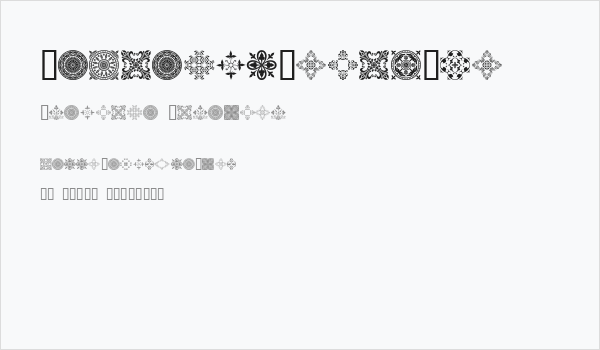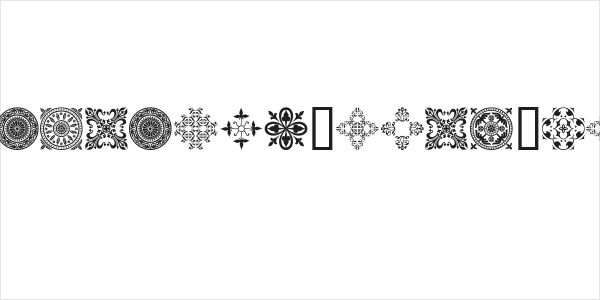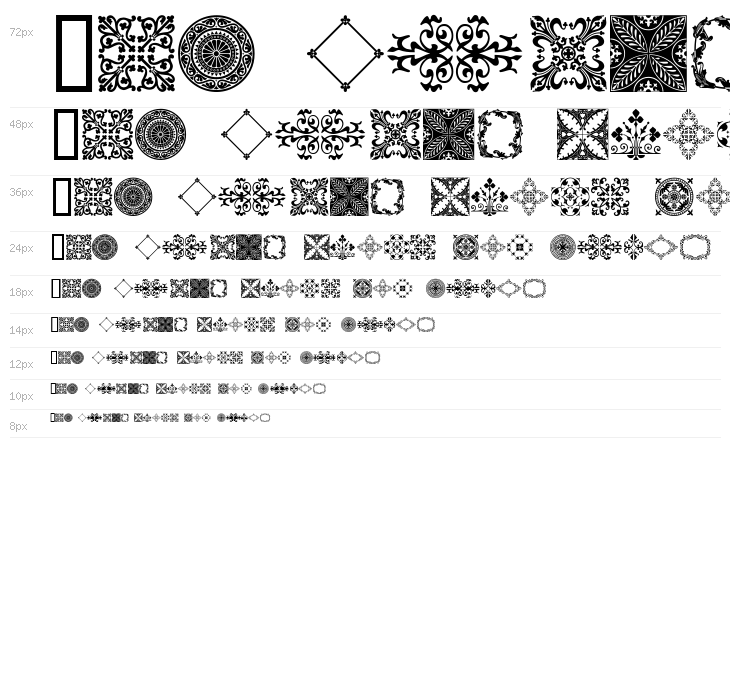
MedievalMotifTwo Font
MedievalMotifTwo Description
A decorative font featuring intricate medieval-inspired motifs and ornamental patterns, with each glyph presenting a unique, highly detailed design reminiscent of historical tilework and filigree.
| Overall Style | Vintage, Decorative, Medieval |
| Use Case | Borders, embellishments, decorative accents, not suitable for body text. |
| Proposed Projects | Invitations, certificates, decorative borders, book covers, branding for luxury or historical products. |